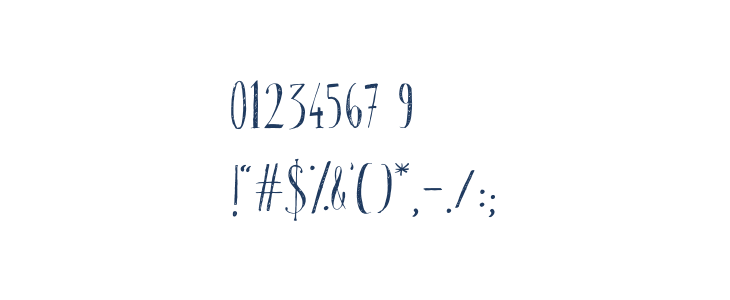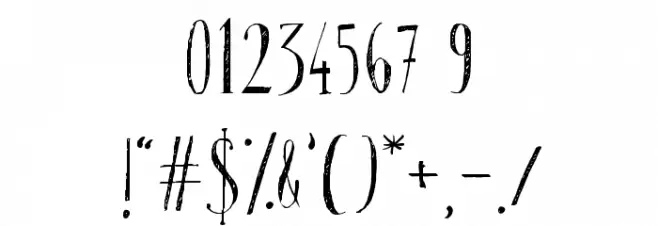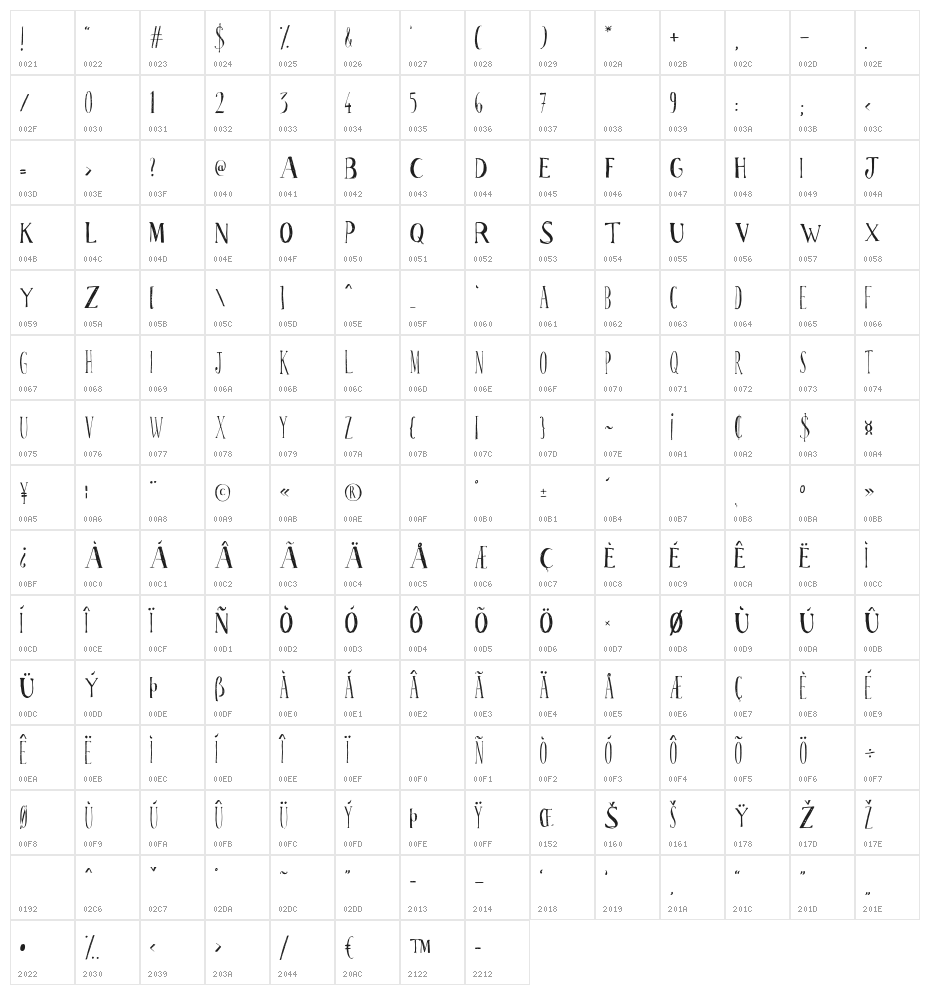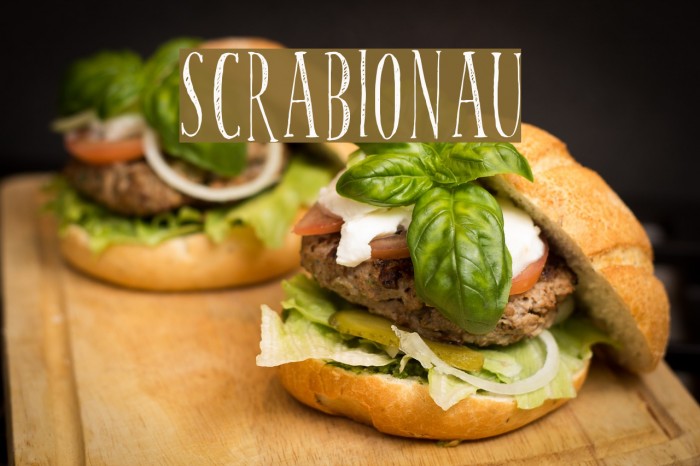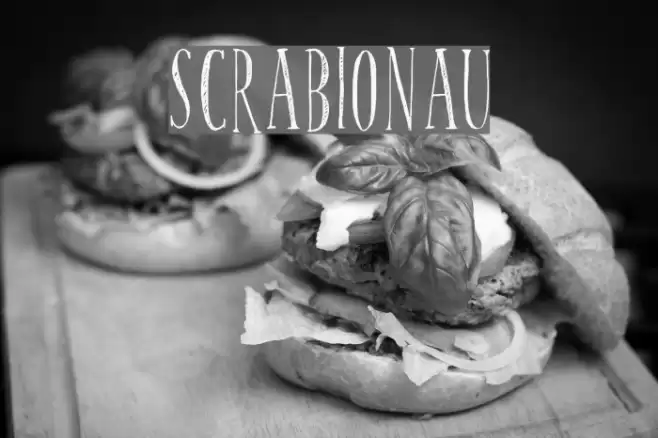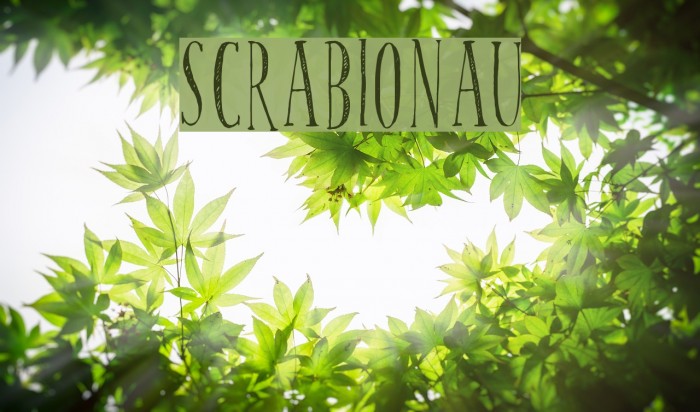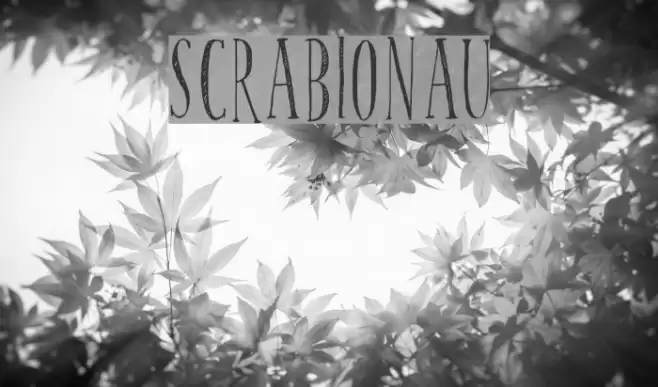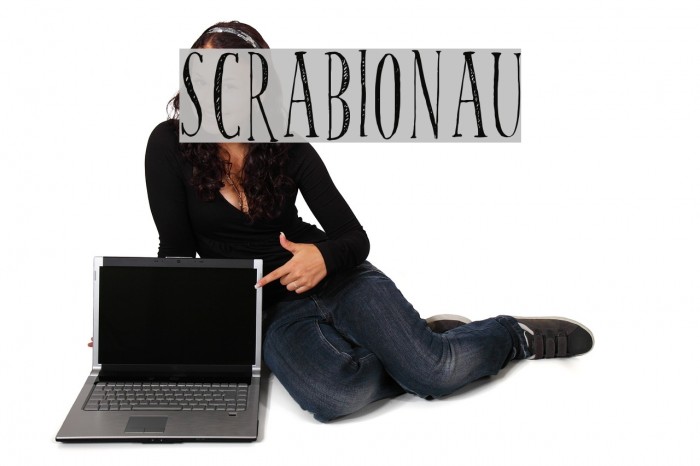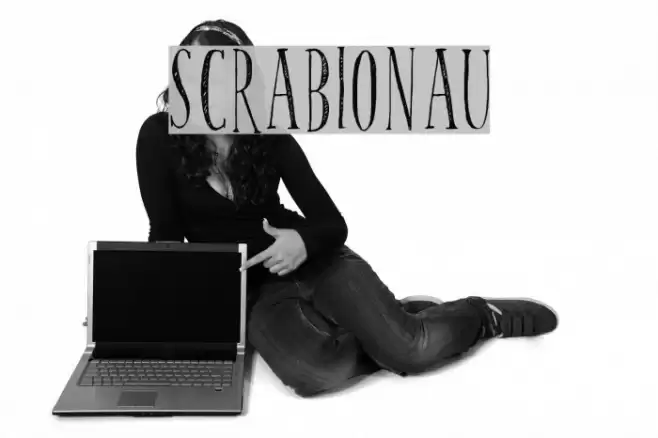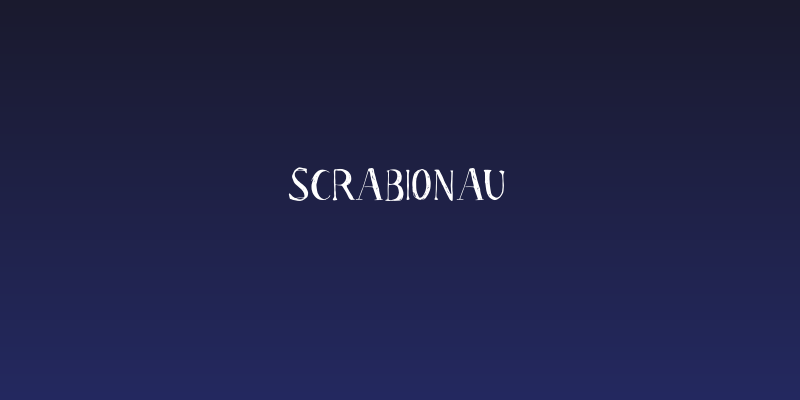
scrabionau Font
scrabionau Description
This font features a unique, hand-drawn style with a playful and artistic flair. The uppercase letters are bold and slightly irregular, giving them a whimsical appearance. The lowercase letters maintain this playful aesthetic, with varying stroke widths that add to the font's charm. The numbers and special characters are similarly styled, ensuring a cohesive look across all elements. This font's distinct personality makes it ideal for creative projects that require a touch of individuality and artistic expression.
| Overall Style | Artistic, Whimsical |
| Use Case | Headlines, Posters, Creative Branding |
| Proposed Projects | Ideal for creative projects such as children's book covers, artistic posters, and unique branding materials. |